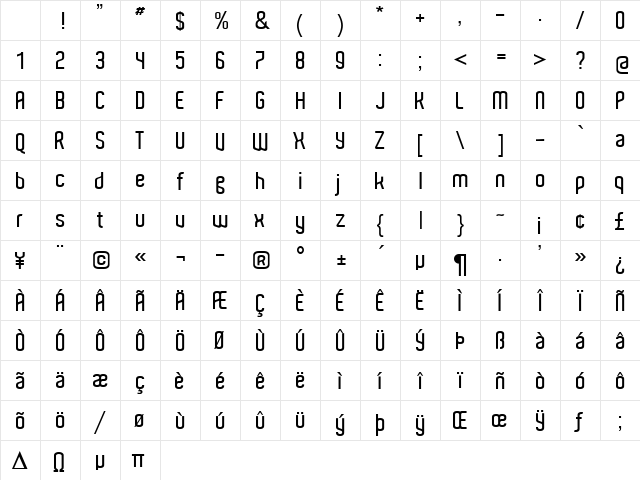
Complete Aldo SemiBold glyph index. Displaying only characters natively supported by Aldo SemiBold font.
Aldo is a composed and adaptable typeface that performs quietly and consistently across a wide range of design contexts. Its bold stroke weight gives it real presence on the page.